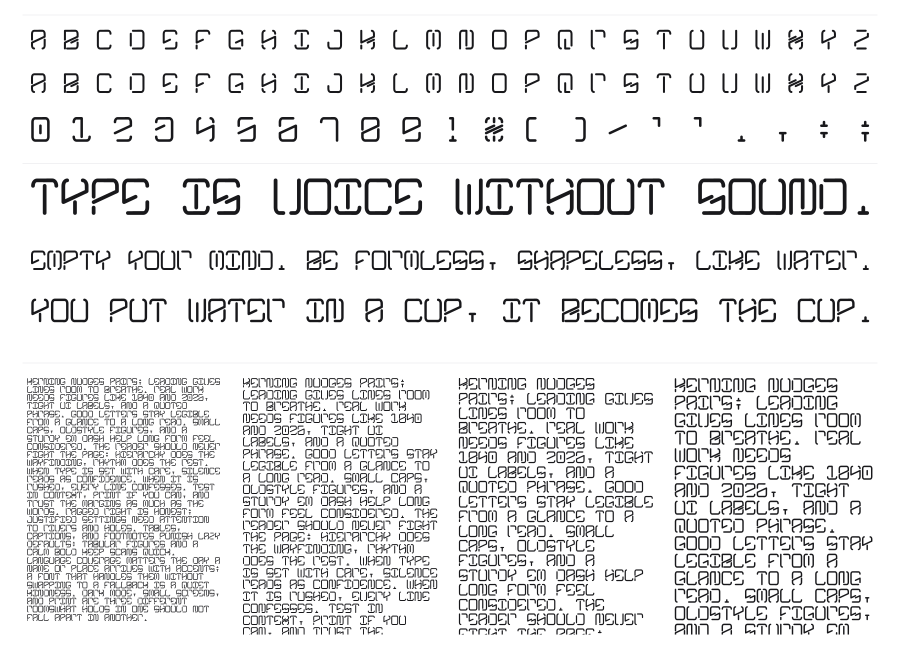
Kyber Crystal
Kyber Crystal is an LCD-inspired Aurebesh font drawing on the alien writing system seen throughout the Star Wars franchise. Characters are built from segmented rectangular modules with rounded corners and short diagonal cuts, giving each letter a screen-readout quality rooted in science fiction. The design sits comfortably in fan projects, game interfaces, sci-fi branding, and anything that needs to feel far, far away.